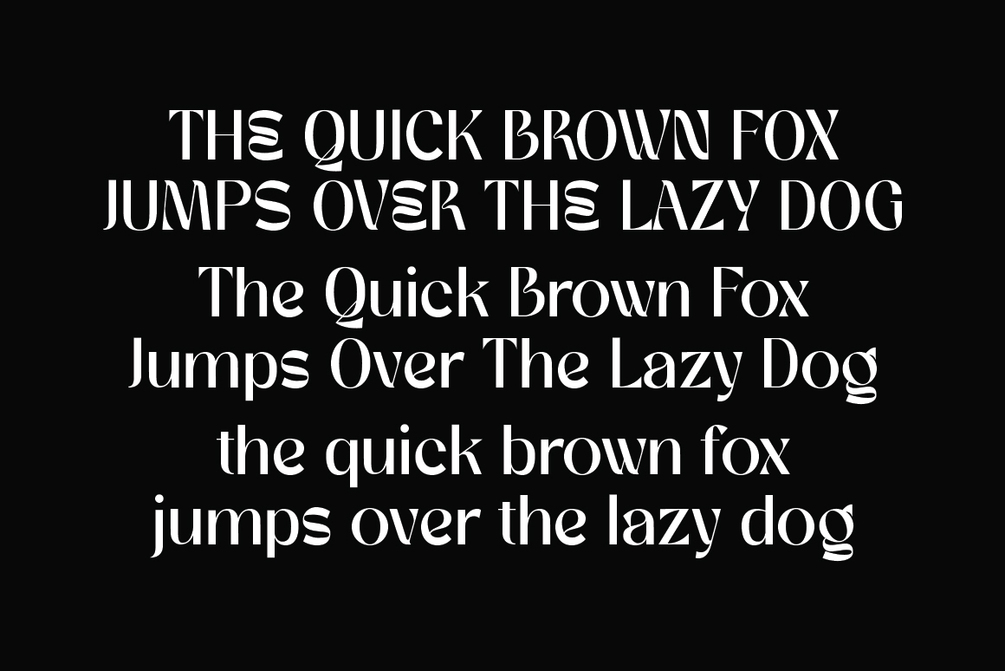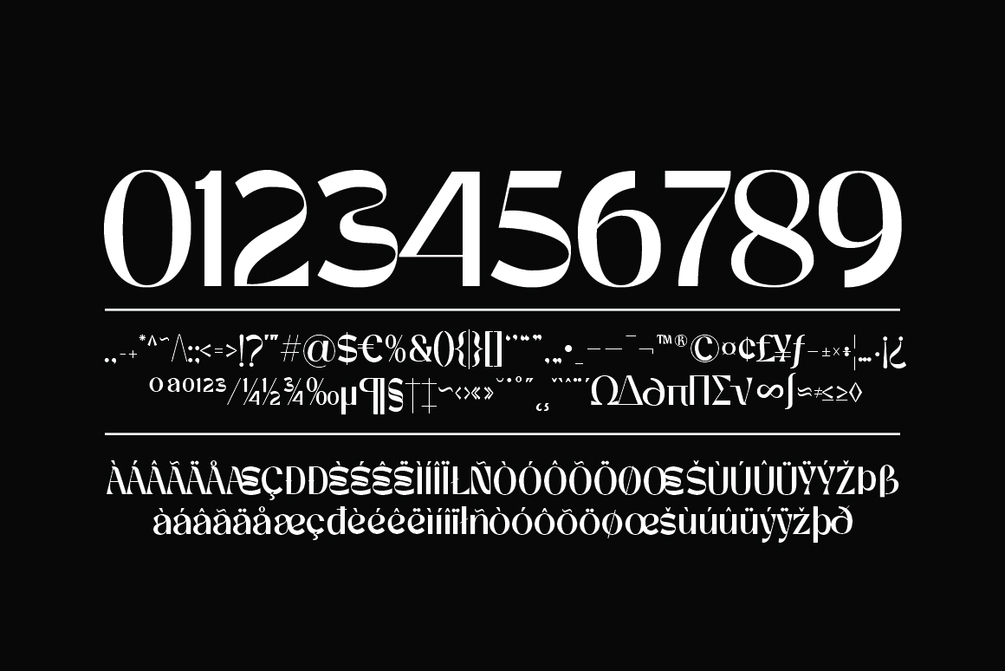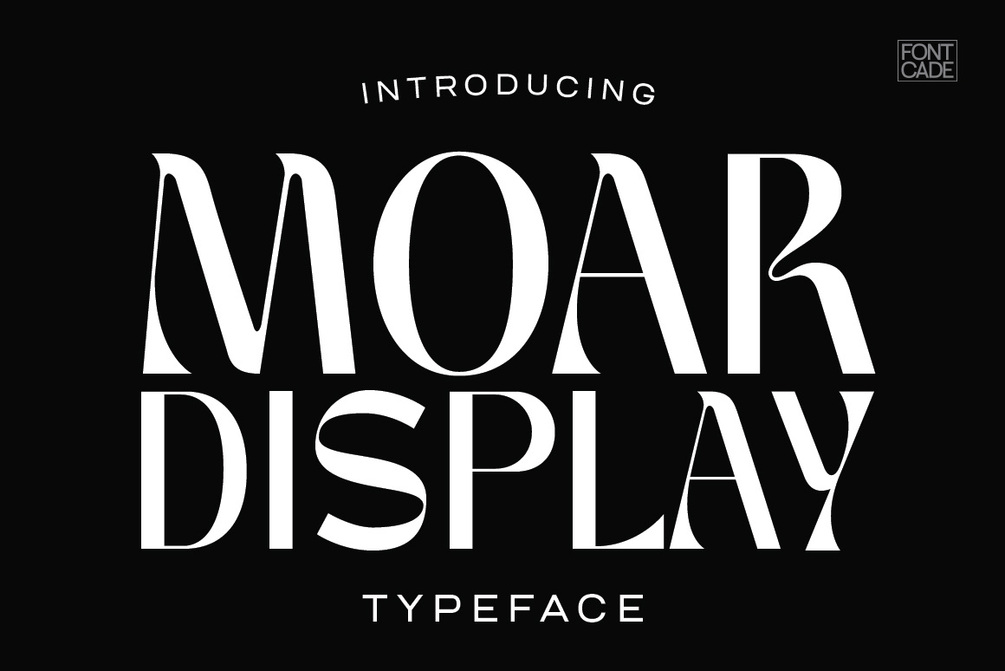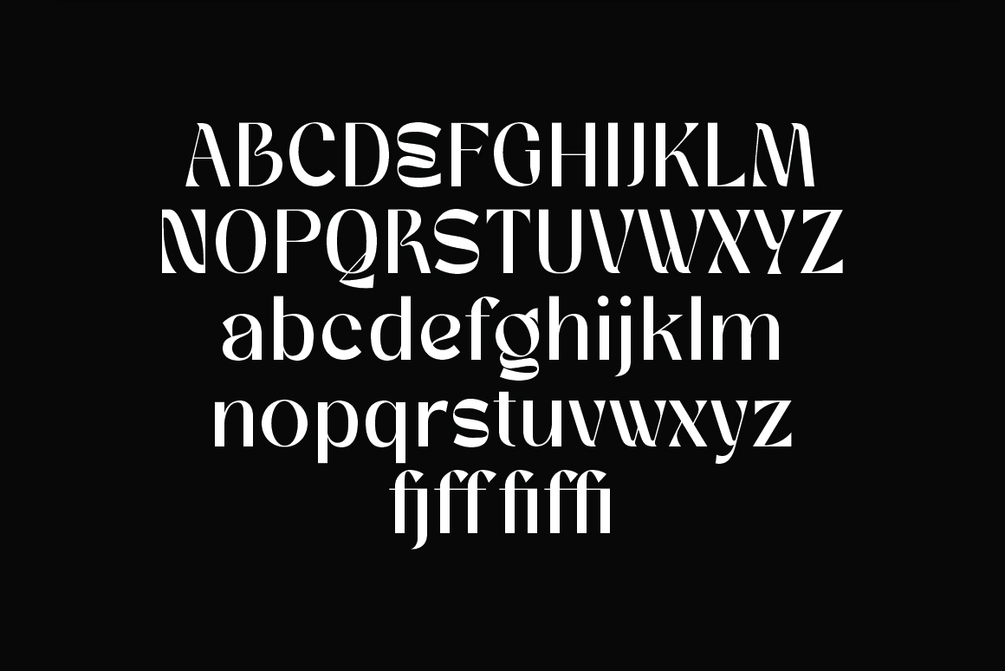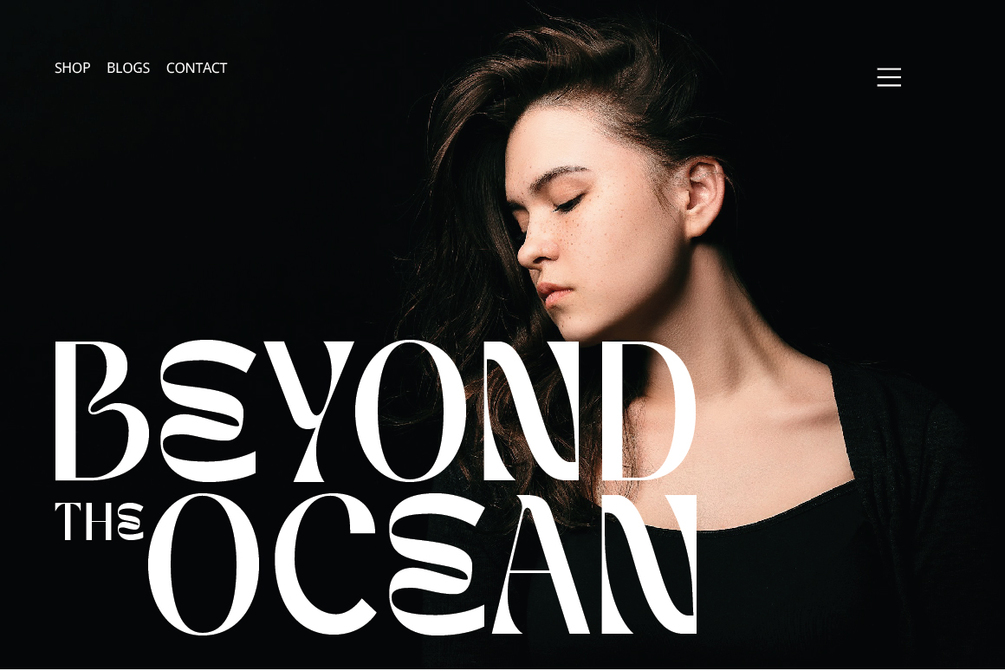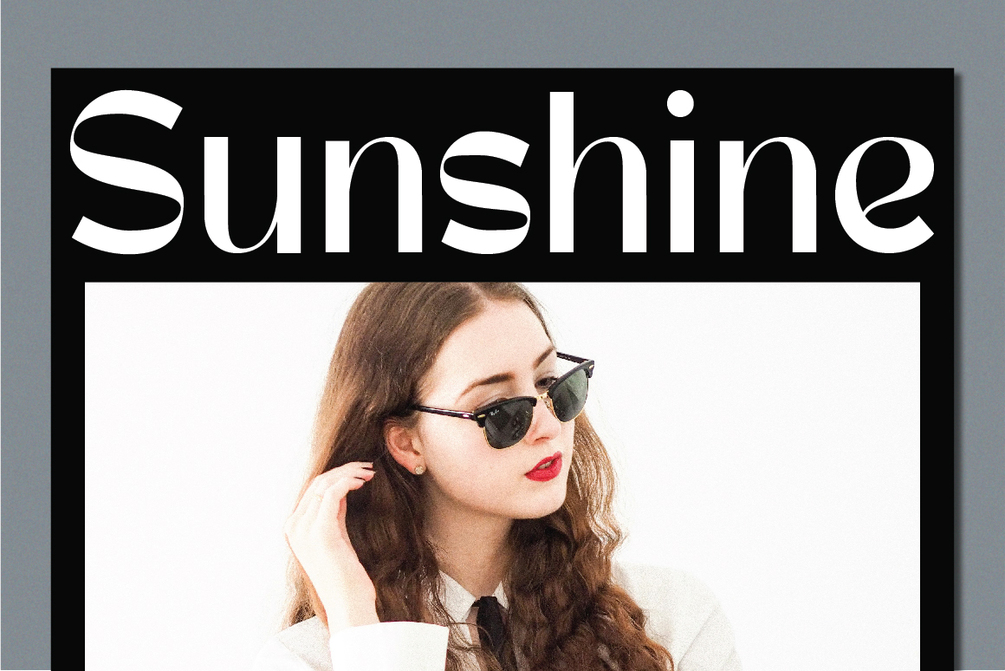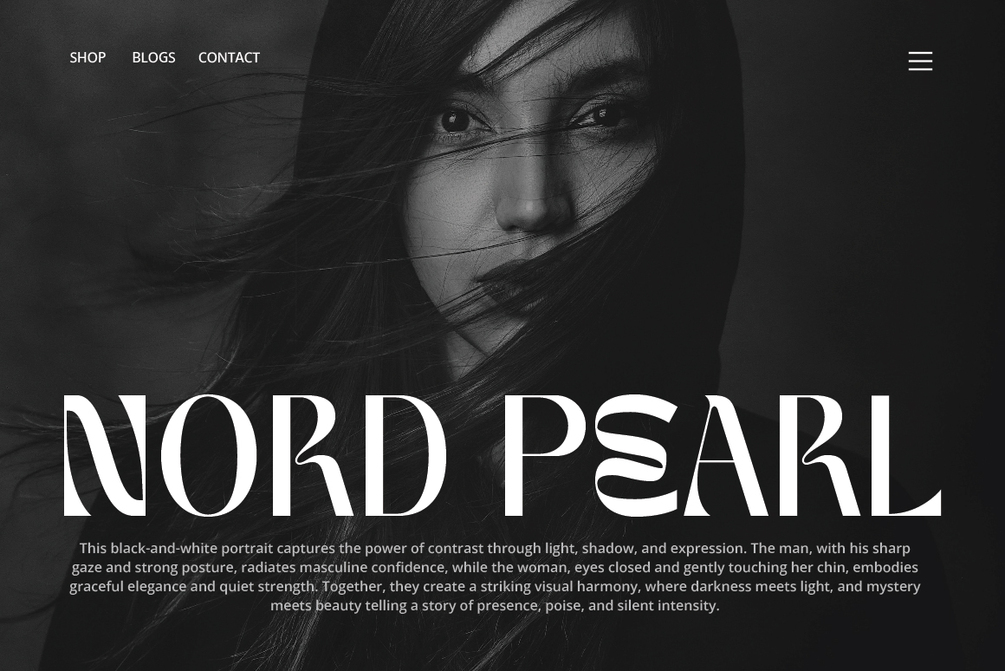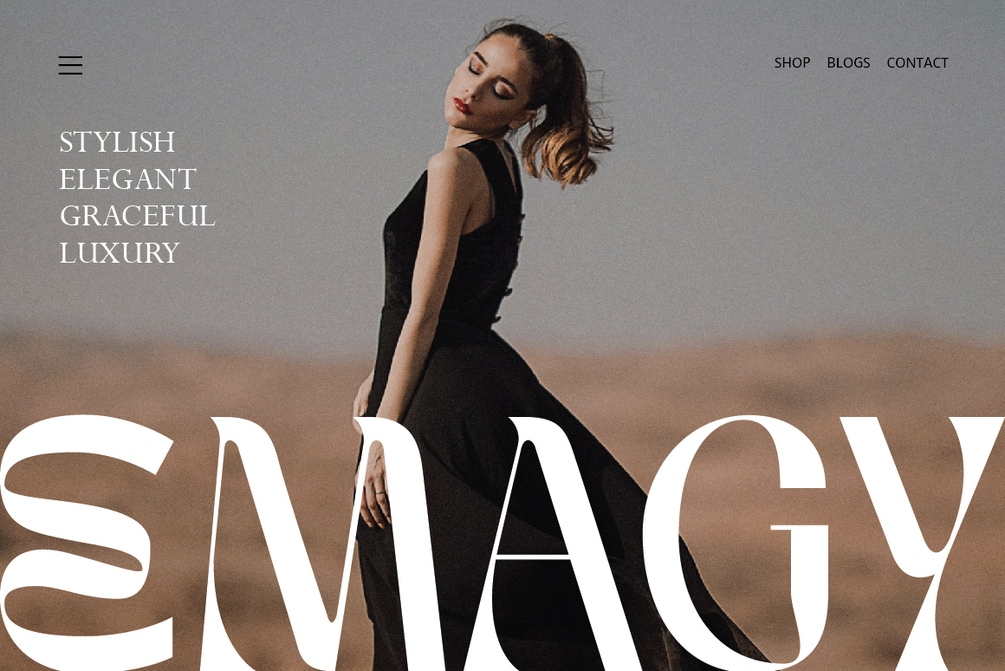
Moar Font
Moar is a stylish and modern display font with a unique twist on classic letterforms. Featuring elegant curves and creative cuts, it adds a futuristic yet luxurious feel to any design. Perfect for branding, editorial, logo design, and high-impact headlines.